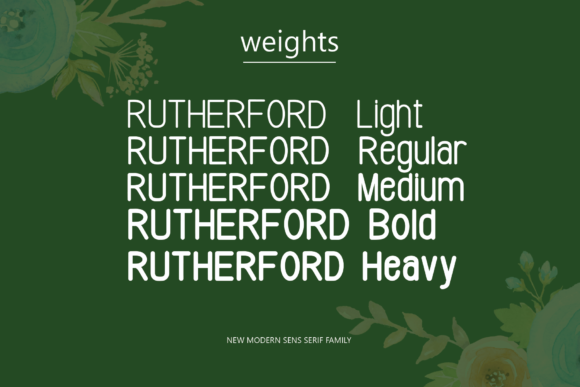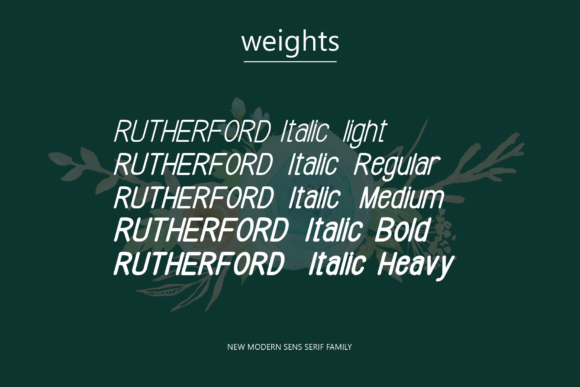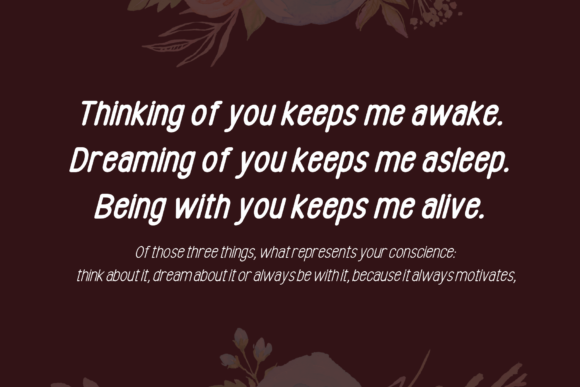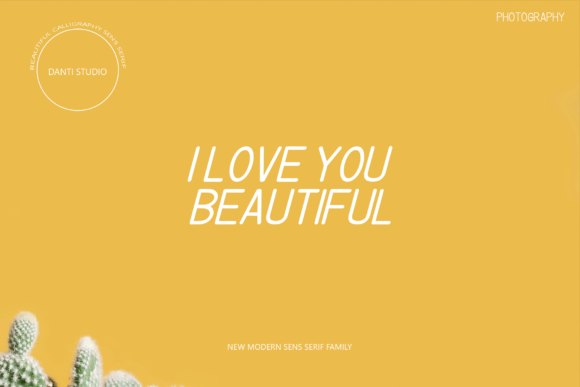
Introduction to Rutherford Font Font
Fonts play a crucial role in design, and the Rutherford Font font is a typeface that brings both character and versatility to any project. Whether you’re working on a branding project, a website, or a print design, the Rutherford Font font offers a unique style that can elevate your work.
Rutherford is a distinct and elegant sans serif family that blends traditional influences into a contemporary aesthetic.
Its well balanced Latin details contain distinctive contrasts Use Rutherford to achieve an exquisite, yet subtle look and maximum versatility.
Key Features of Rutherford Font Font
Why Choose Rutherford Font Font?
The Rutherford Font font is more than just a typeface – it’s a design tool that helps you communicate your message with style and clarity. Its unique character set and versatile design make it suitable for a wide range of applications, from elegant invitations to bold headlines.
With its carefully crafted letterforms and balanced proportions, the Rutherford Font font ensures readability and visual appeal across all mediums.
What makes Rutherford Font font special?
The Rutherford Font font stands out with its unique design, exceptional readability, and versatility across various design applications.